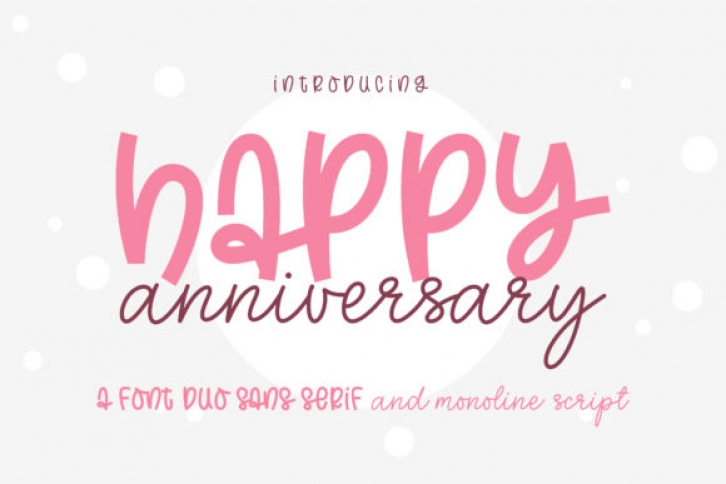
Happy Anniversary a duo-styled handwritten font which feels equally charming and elegant. It looks stunning on wedding invitations, thank you cards, quotes, greeting cards, logos, business cards, and every other design which needs a handwritten touch.